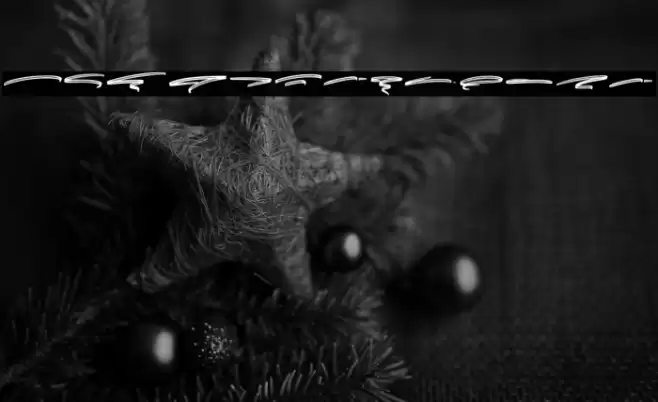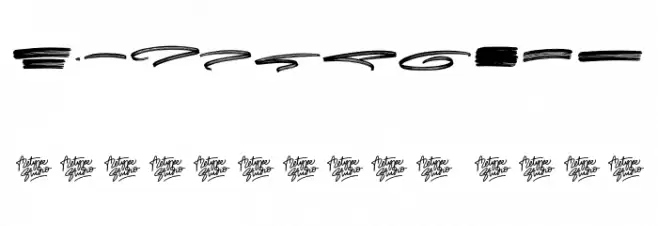
Greatest Richmond Swash Font
Greatest Richmond Swash Description
This font features an elegant and flowing script style, characterized by its sweeping curves and intricate swashes. The letters are interconnected, creating a sense of fluidity and movement. The strokes vary in thickness, adding a dynamic and artistic flair. This font exudes a sense of sophistication and creativity, making it ideal for projects that require a personal and artistic touch. The overall appearance is both decorative and refined, suitable for a variety of design applications.
An elegant, flowing script font with intricate swashes from Uncategorized fonts.
- Font: Greatest Richmond Swash
- Proposed Projects: Ideal for wedding invitations, branding, logos, and artistic projects that require a personal touch.
- Character Spacing: Tight
- Use Case: Logos, Invitations, Artistic projects